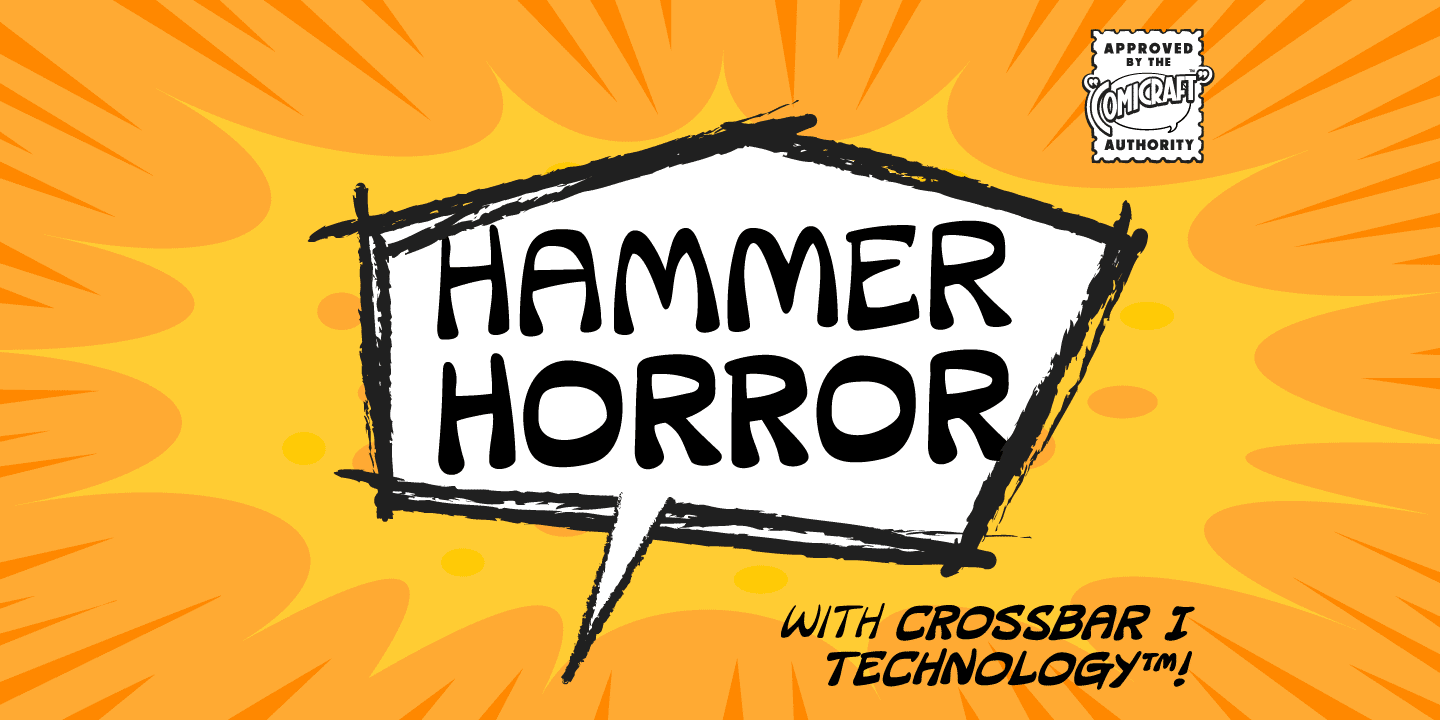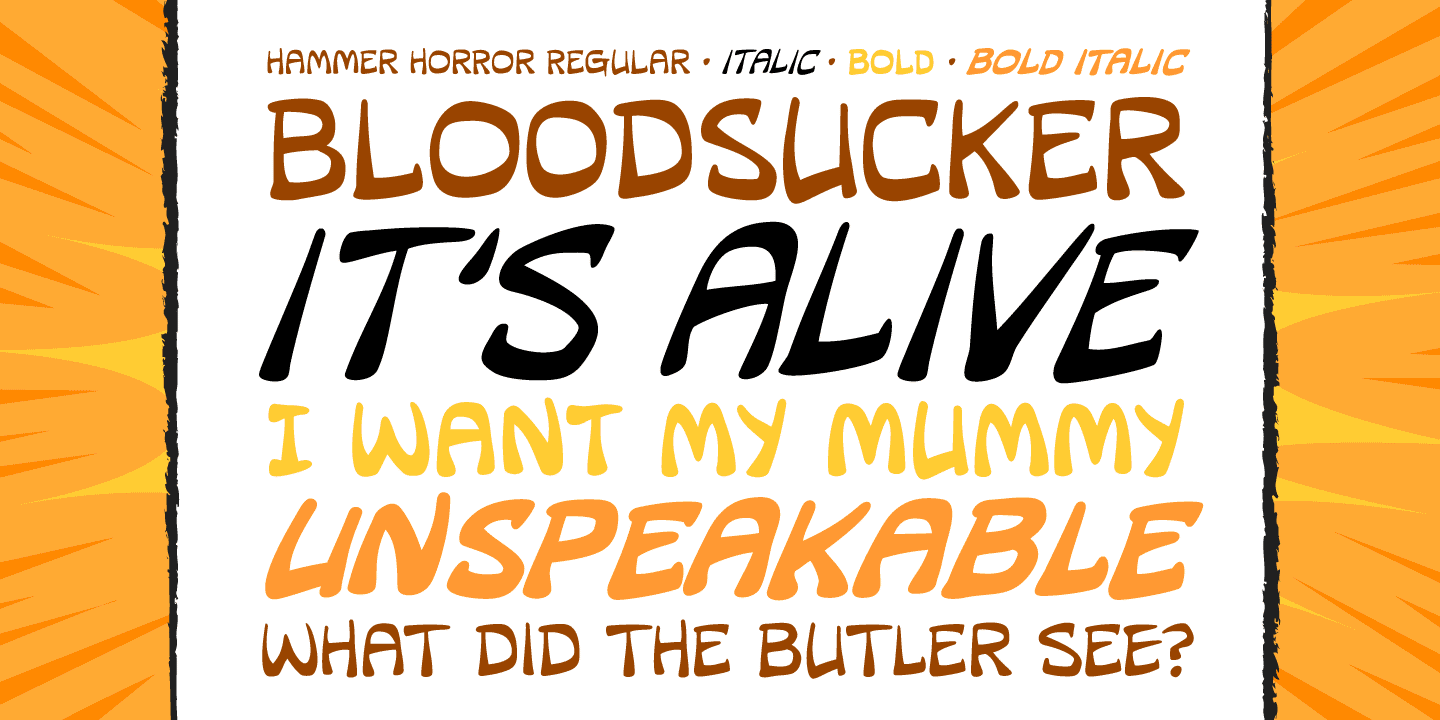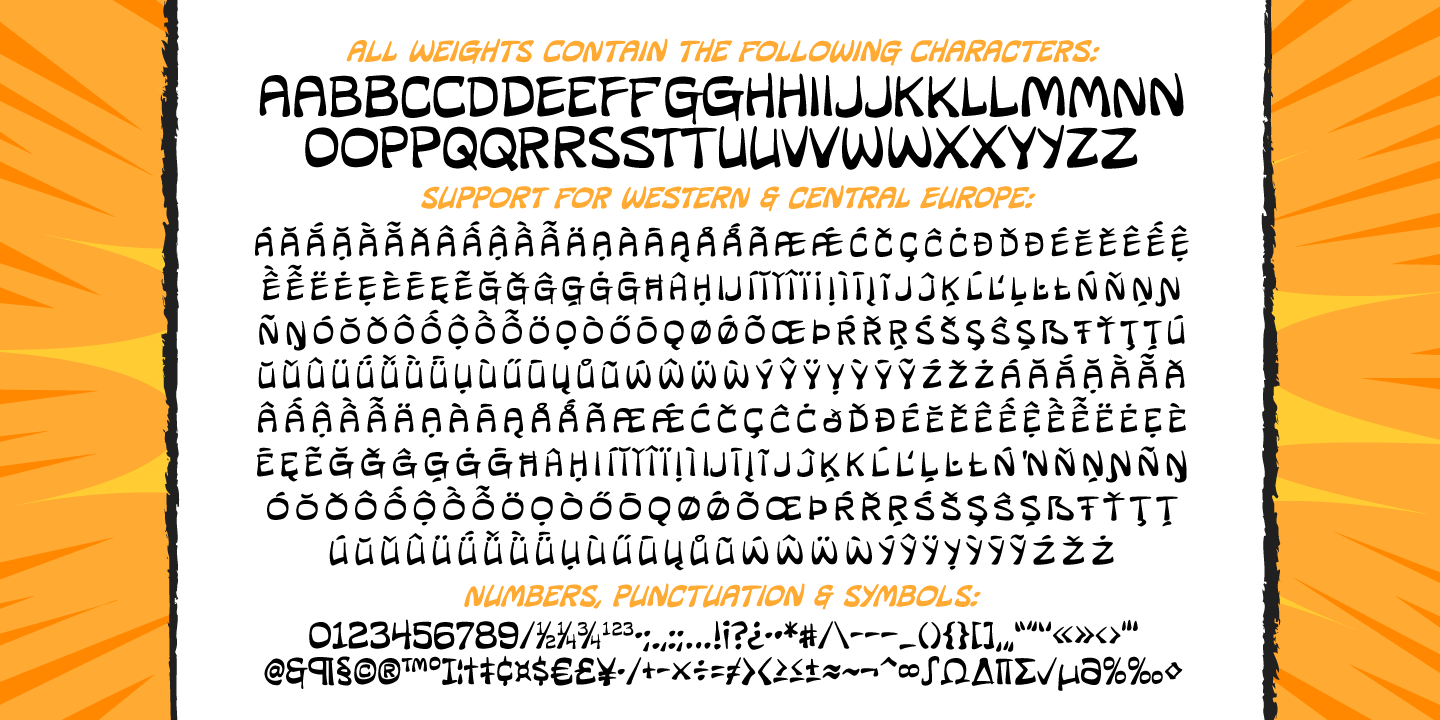
Hammer Horror
Font Family by Comicraft Fonts
Those footsteps you hear as you walk down that dimly lit Victorian street...? That flapping of leathery wings in the air...? The howl of some kind of Wolf-man in the countryside...? Those sounds that chill your spine and triphammer your heart are the sounds of unspeakable, terrifying terrors.... some might say horrifying horrors, scarifying scares... hammering, uh, hammers and now there's a font to capture them... a font that wants to suck your blood. Custom made for Ian Churchill's Awesome comic, THE COVEN.